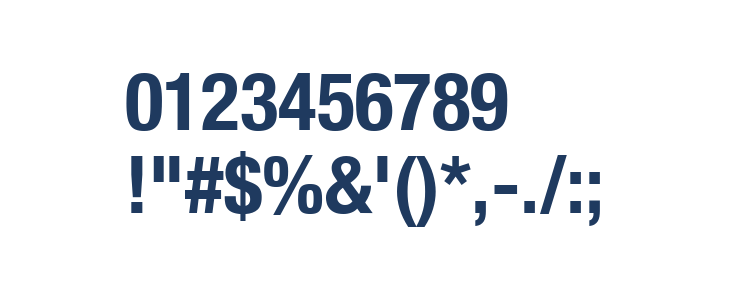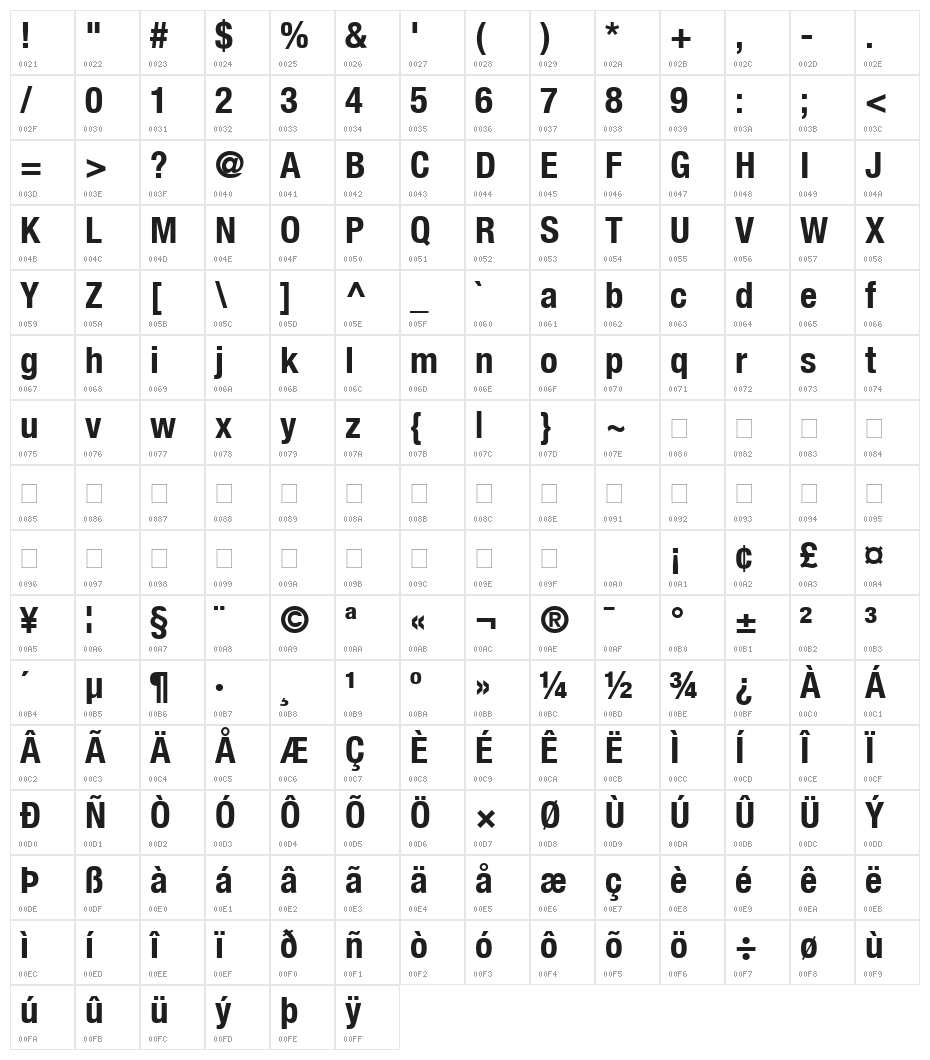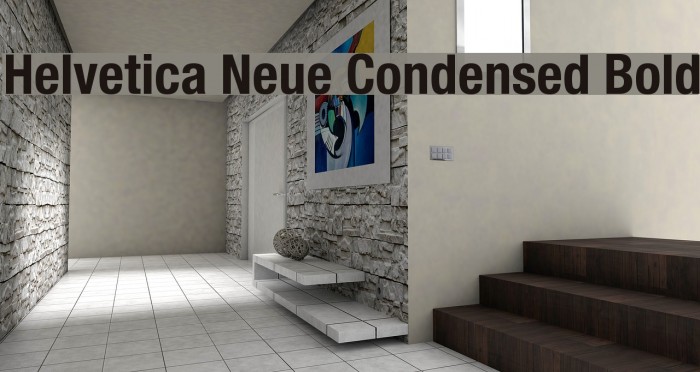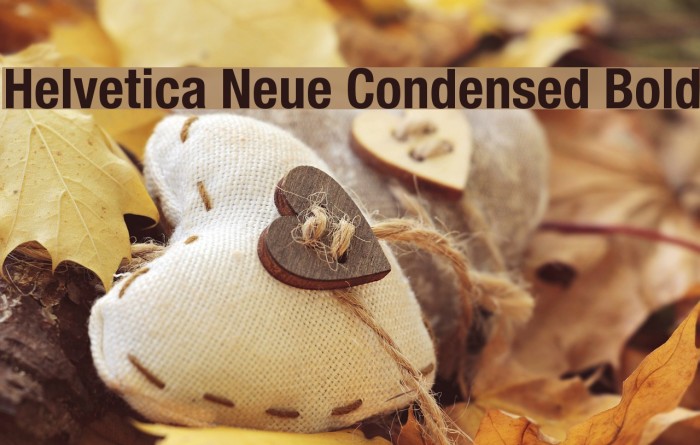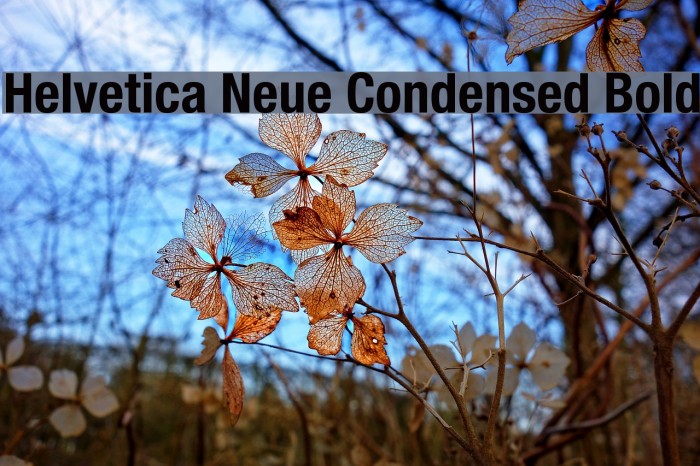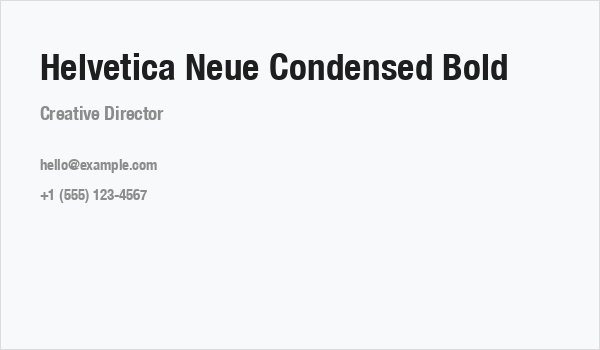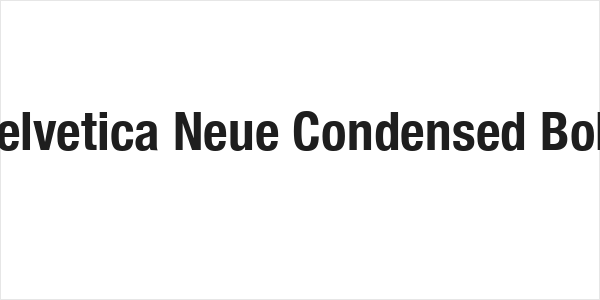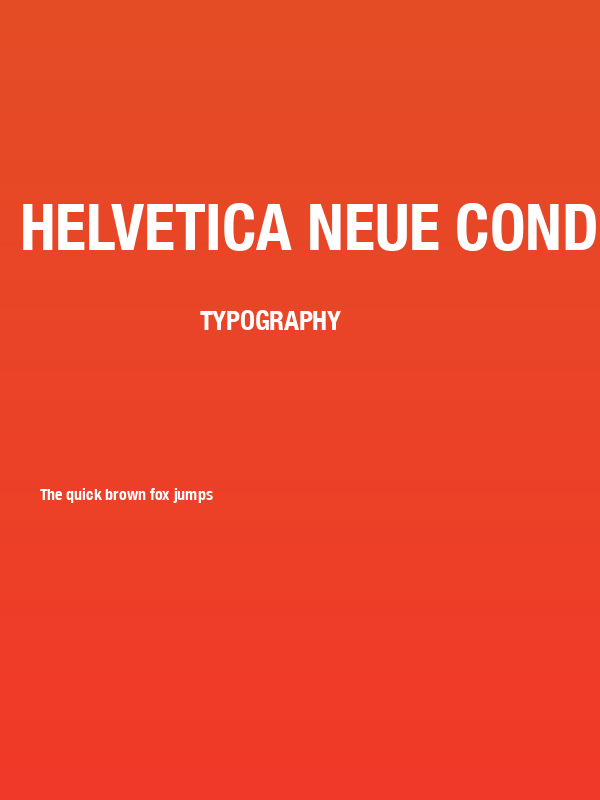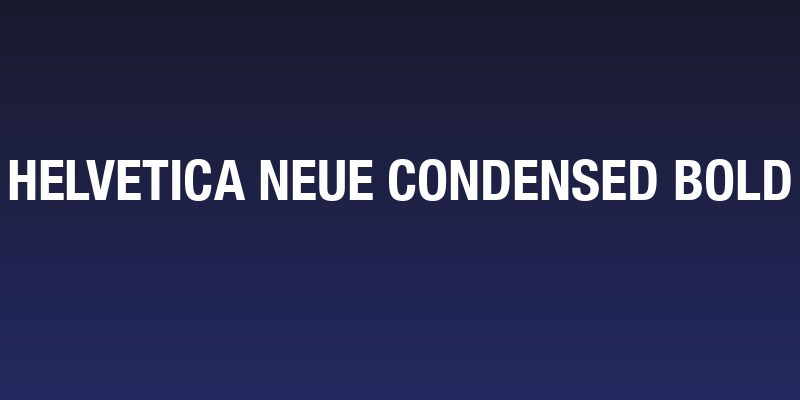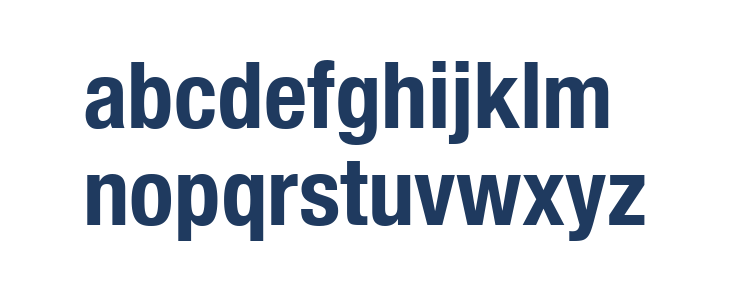
Helvetica Neue Condensed Bold Font
Helvetica Neue Condensed Bold Description
This font is a bold, sans-serif typeface characterized by its clean and modern appearance. It features condensed letterforms that provide a compact and efficient use of space, making it ideal for situations where space is limited but impact is necessary. The strokes are uniform in thickness, contributing to a strong and assertive look. The characters are well-defined with minimal contrast, emphasizing clarity and readability. This typeface is versatile, suitable for both digital and print media, and can be used effectively in various design contexts.
| Use Case | Headlines, Logos, Advertising |
| Proposed Projects | Ideal for branding, advertising, headlines, and signage where a strong visual impact is required. |